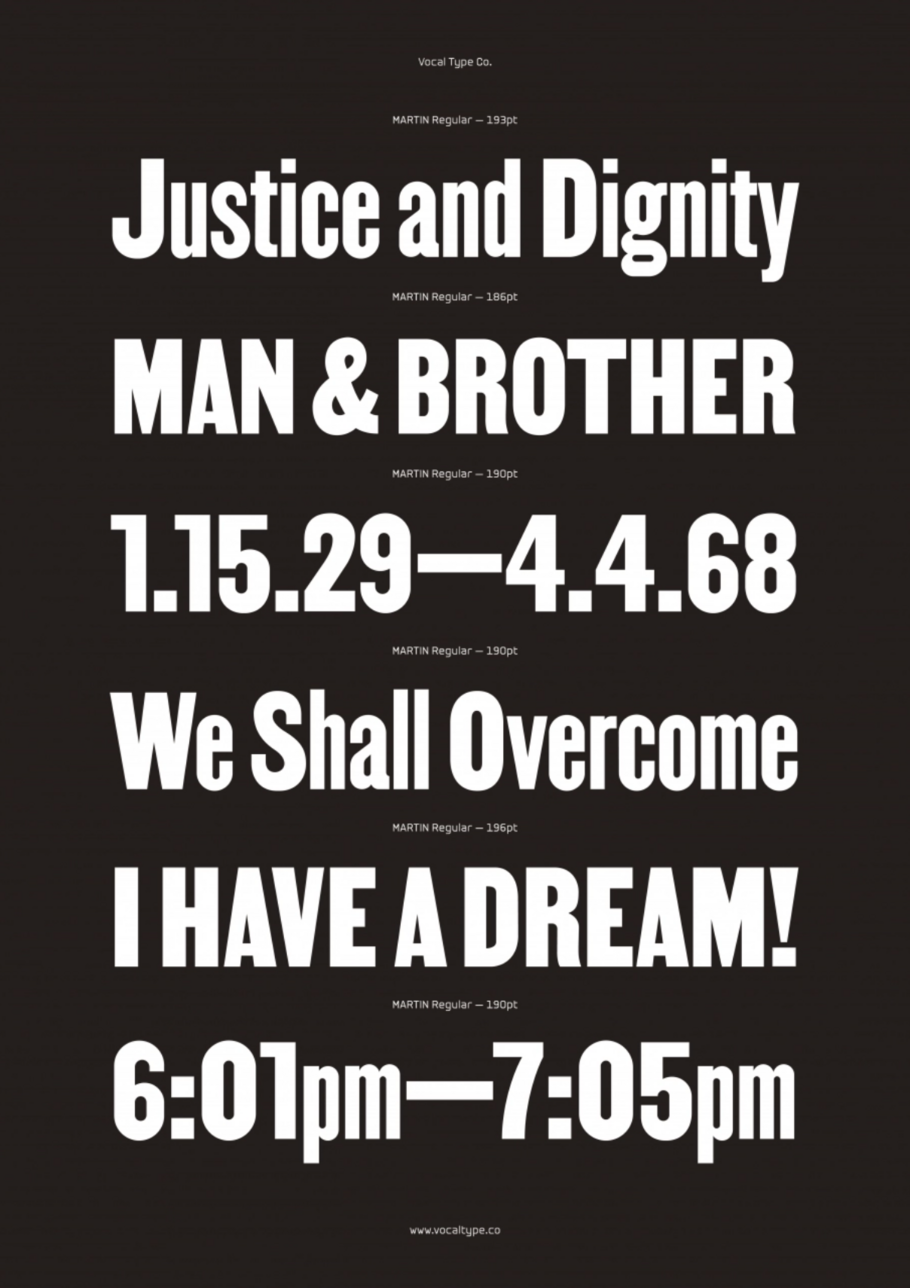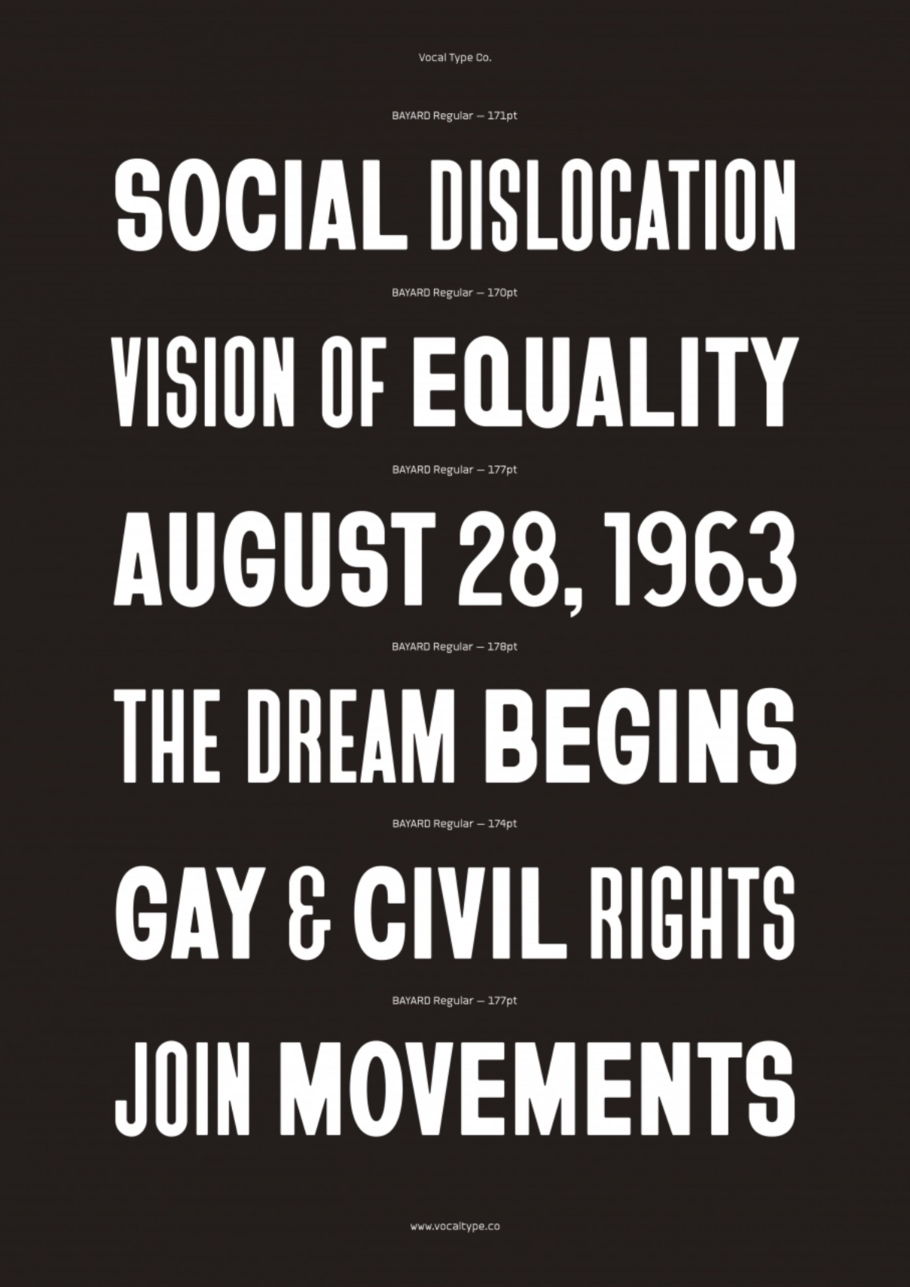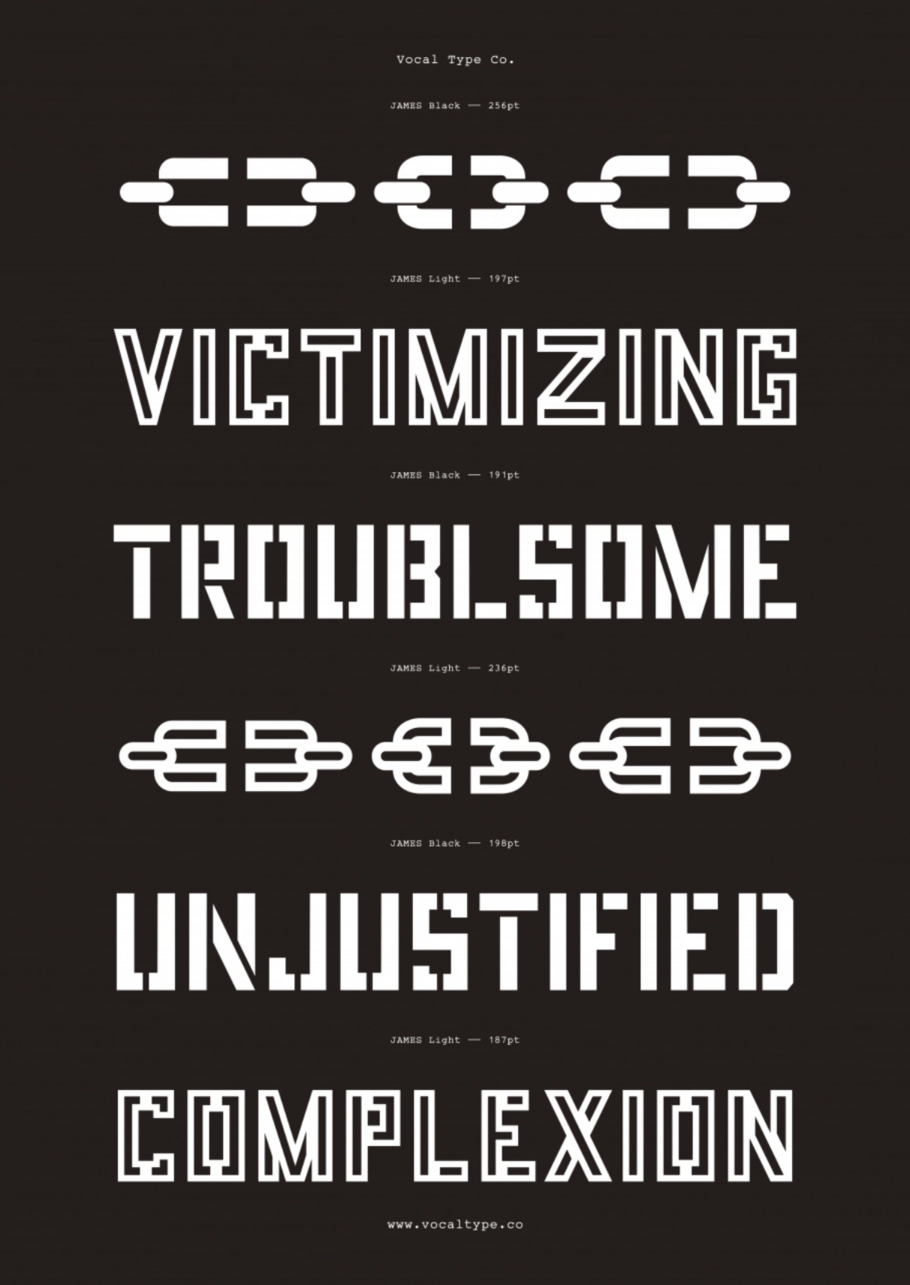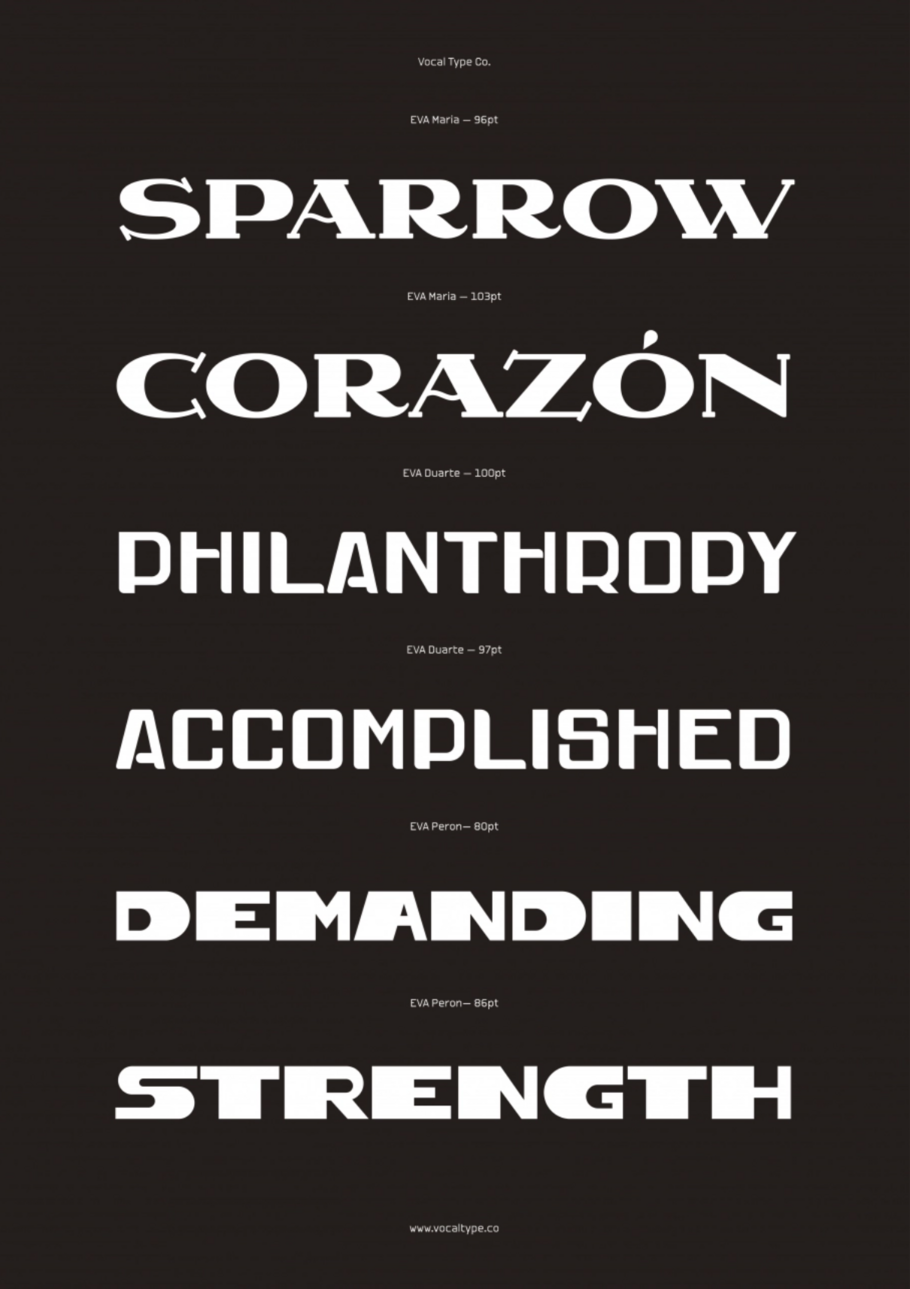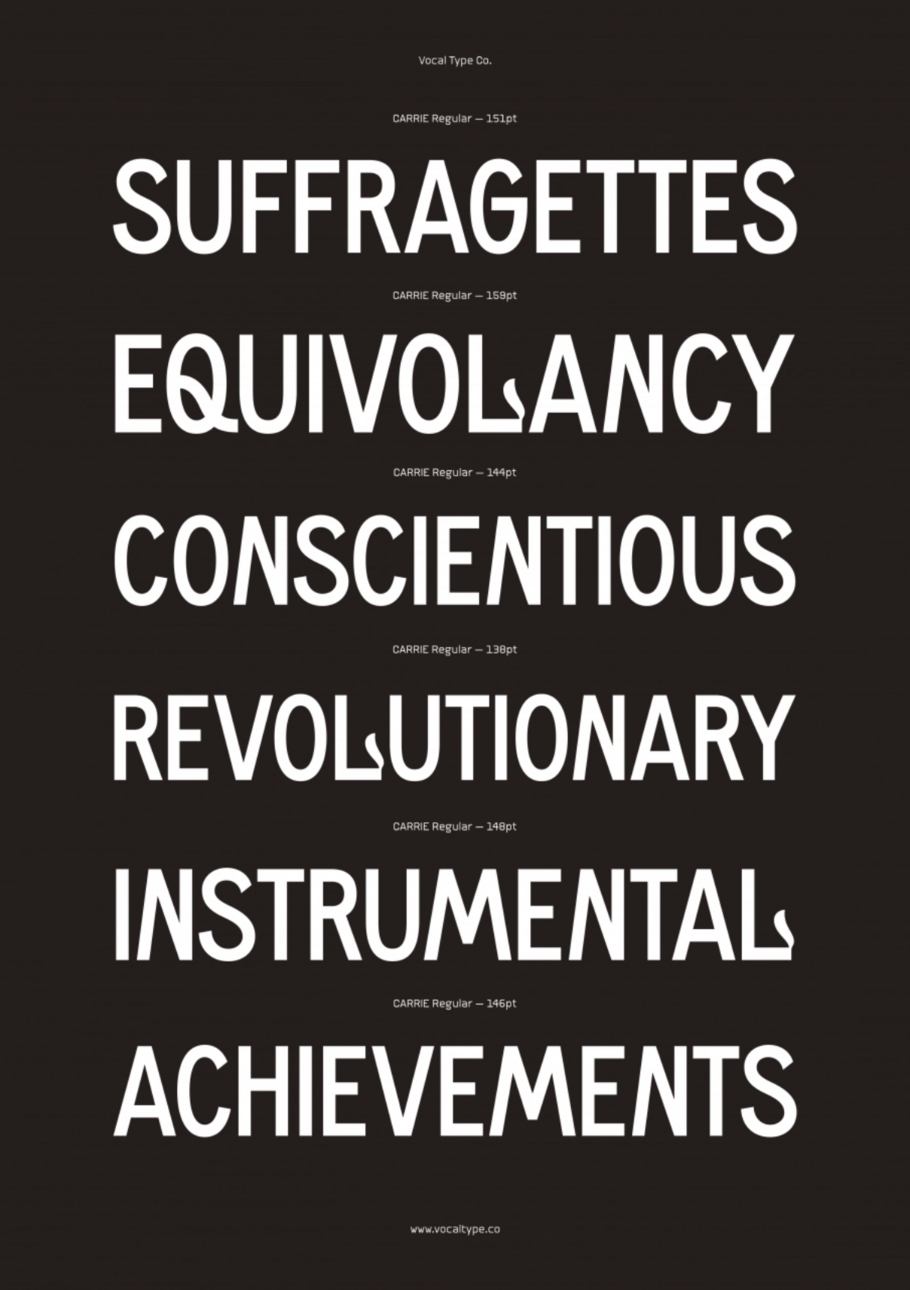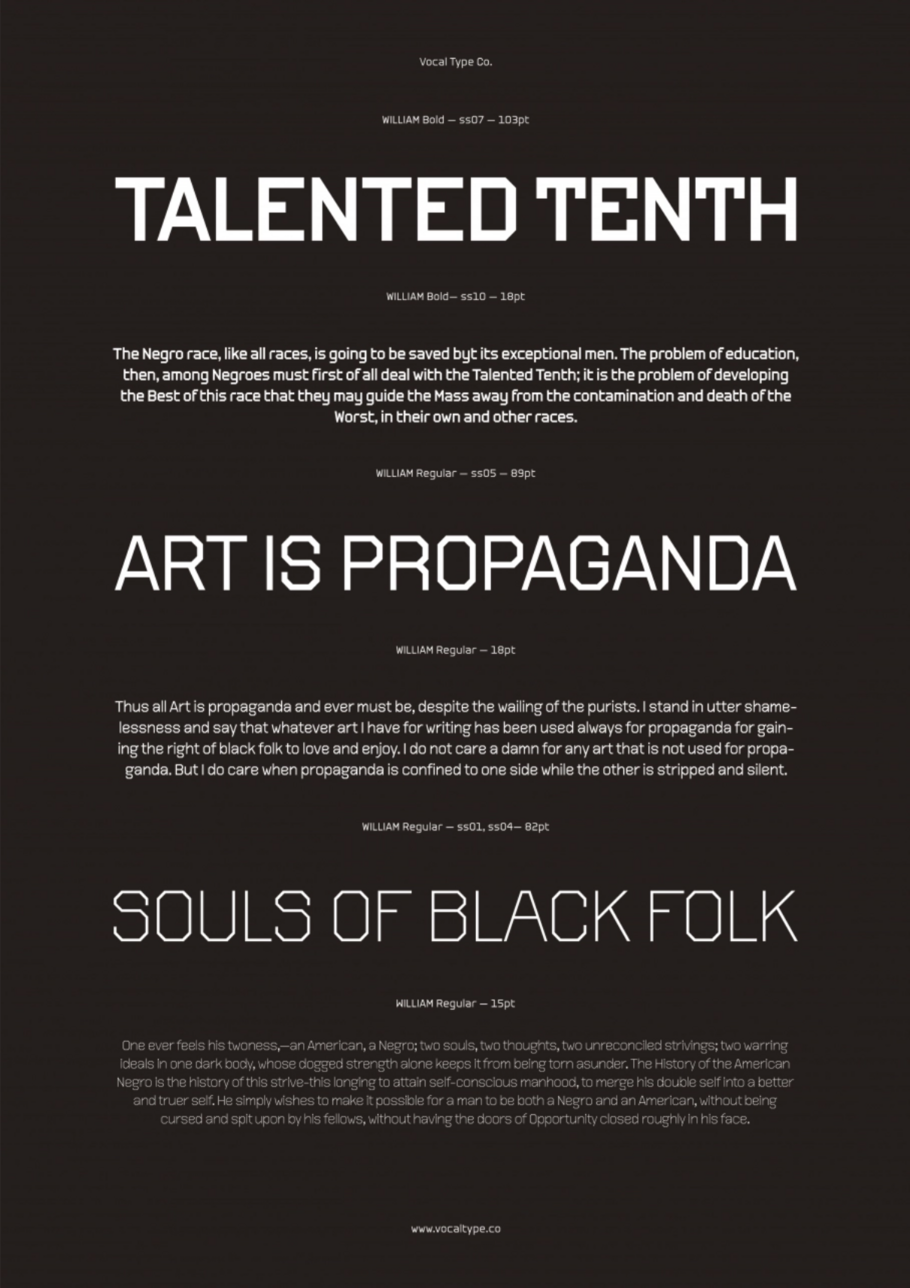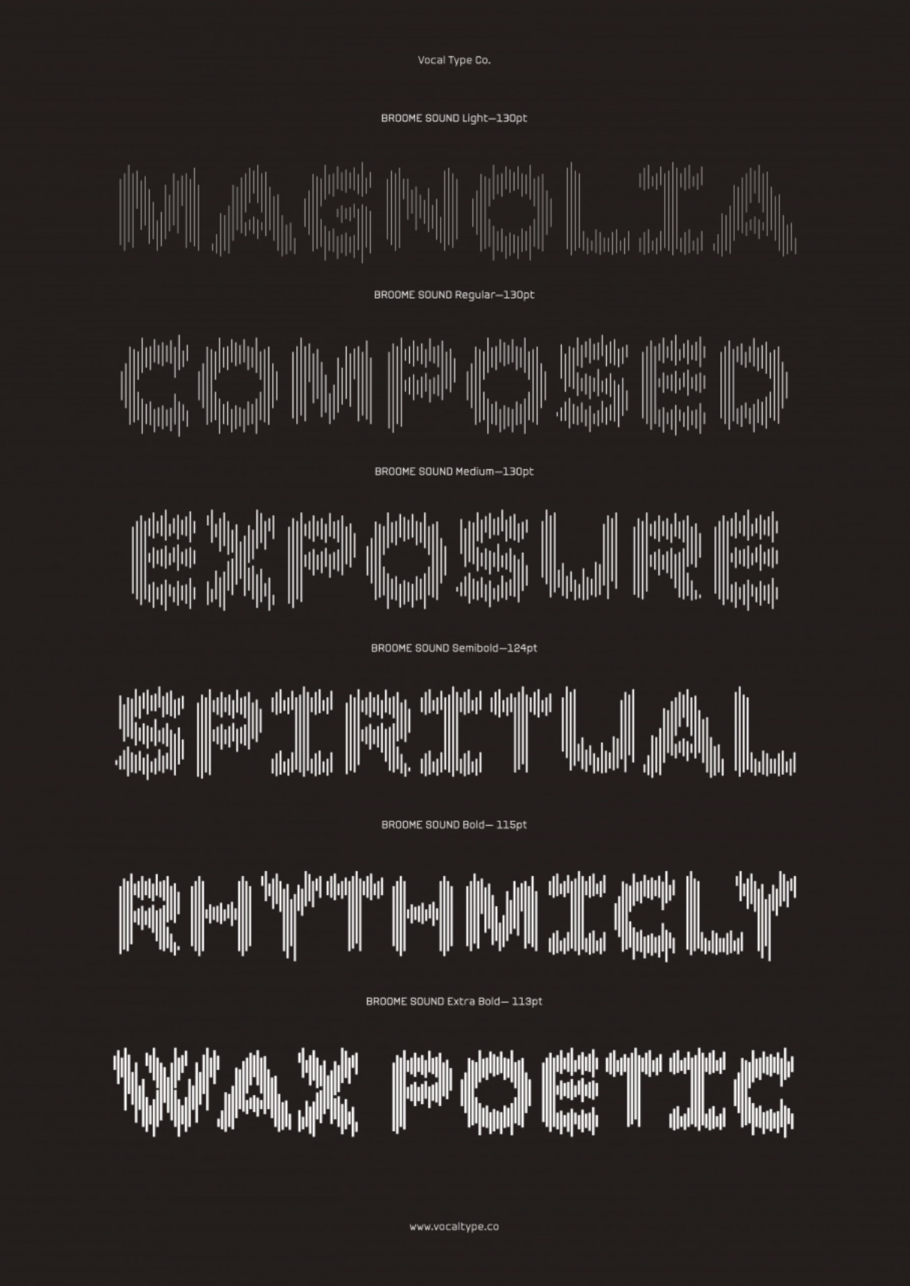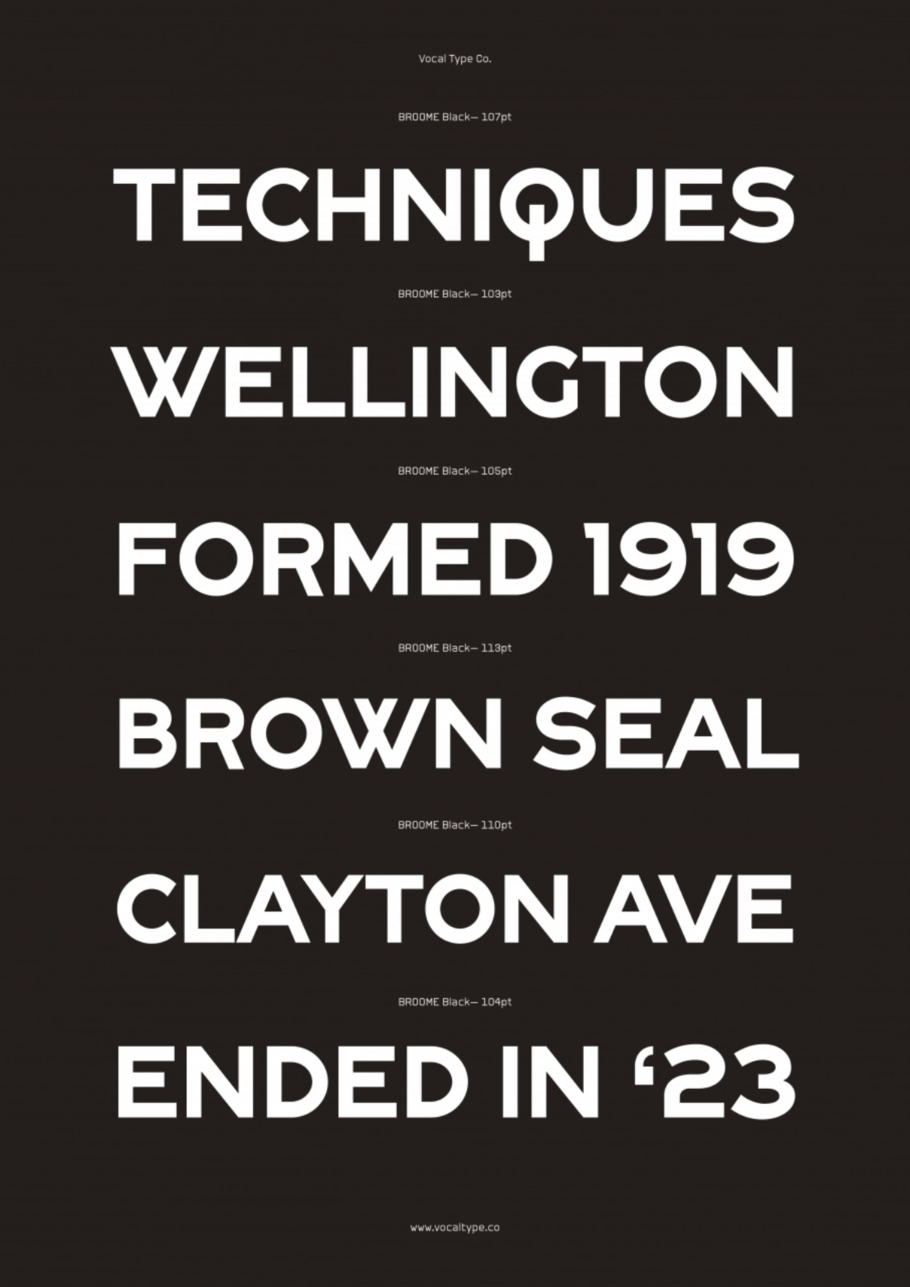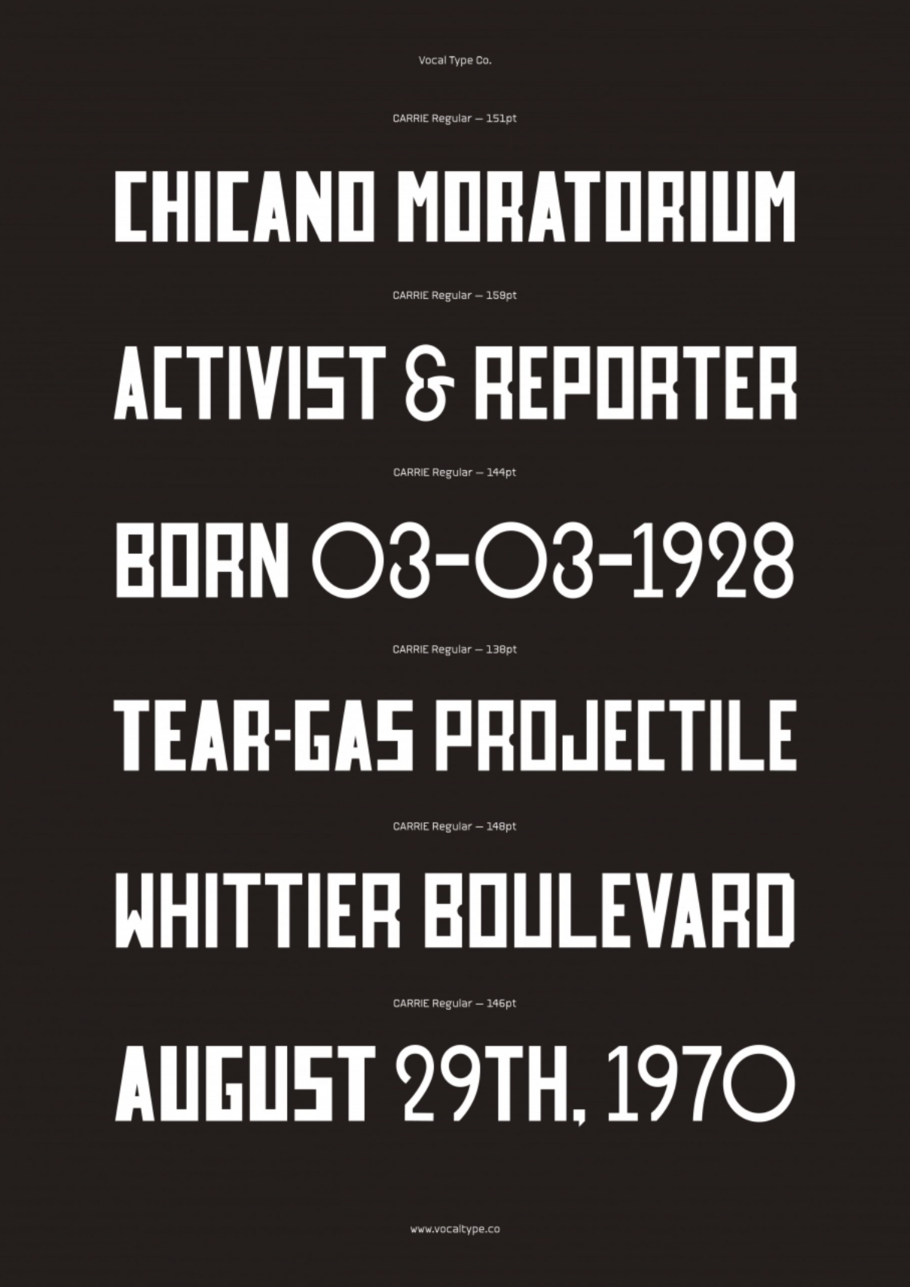
Creative Characters Ep. 4: Tré Seals.
“ Vocal is for the creative that cares about telling the stories of the people we serve and not the false history of the industry we work in. ”
Tré Seals.
Our guest in episode four was Tré Seals, founder of the type studio Vocal Type. Seals describes Vocal as “a type foundry for creatives of color who feel that they don’t have a say in their industry … for the creative women who feel that they don’t have a say in their industry …  for the creative that cares about telling the stories of the people we serve and not the false history of the industry we work in.” All of Vocal’s typefaces are named after prominent advocates of social justice, including Marsha P. Johnson, Bayard Rustin, and Carrie Chapman Catt.
“One of the reasons I started Vocal was to minimalize the use of stereotypical fonts,” Seals adds in the episode. “So for example, let’s say you see an article about a black person. Normally you would probably see a black weight font used to describe this black person. Or like how almost every East Asian restaurant has a similar brush script logo, harkening back to old East Asian painting. I would prefer a company to use one of my fonts instead of resorting back to those stereotypes because at least there’s some level of authenticity in that choice.”
Seals details his experience of having not one, but two brain tumors as a child, and how art emerged as a coping mechanism during that time. “I remember going to art therapy while I was in the hospital and how it relaxed me and made all the pain and fear and everything go away,” he explained. “Ever since then, drawing and writing, whether it’s type or illustration, just kind of helps me solve all my problems.”
He traces a direct line from that experience straight through to his present career, including his first attempt as an entrepreneur in middle school, graffitiing kids’ names on index cards for a few bucks. “I was supposed to be running the school store at the time” he joked. “Kids were coming to buy like hacky sacks and erasers, and I would say, ‘Hey, you want to want me to graffiti your name on an index card?’”
The vision for Vocal Type goes well beyond type design. Seals wants Vocal to become a resource for people fighting for equal representation in all facets of life, but especially the design and creative fields.
“I want the Vocal Type website to not only be a place where you can buy fonts, but … a one-stop resource” for diversity and inclusion education as well, he told us. “Either you can come to me for thoughts or questions on diversity and inclusion, or I can point you in the direction of people who are more experienced than I am and who have been in the industry longer,” such as the Creative Reaction Lab, Project Inkblot, Visible Alliance, and the Revision Path podcast, as well as designers and artists including Rich Tu, Juan Carlos Pagan, Wael Marcos and Jon Key, poly-mode, Jerome Harris, Lynne Yun, and Monotype’s own Juan Villanueva.